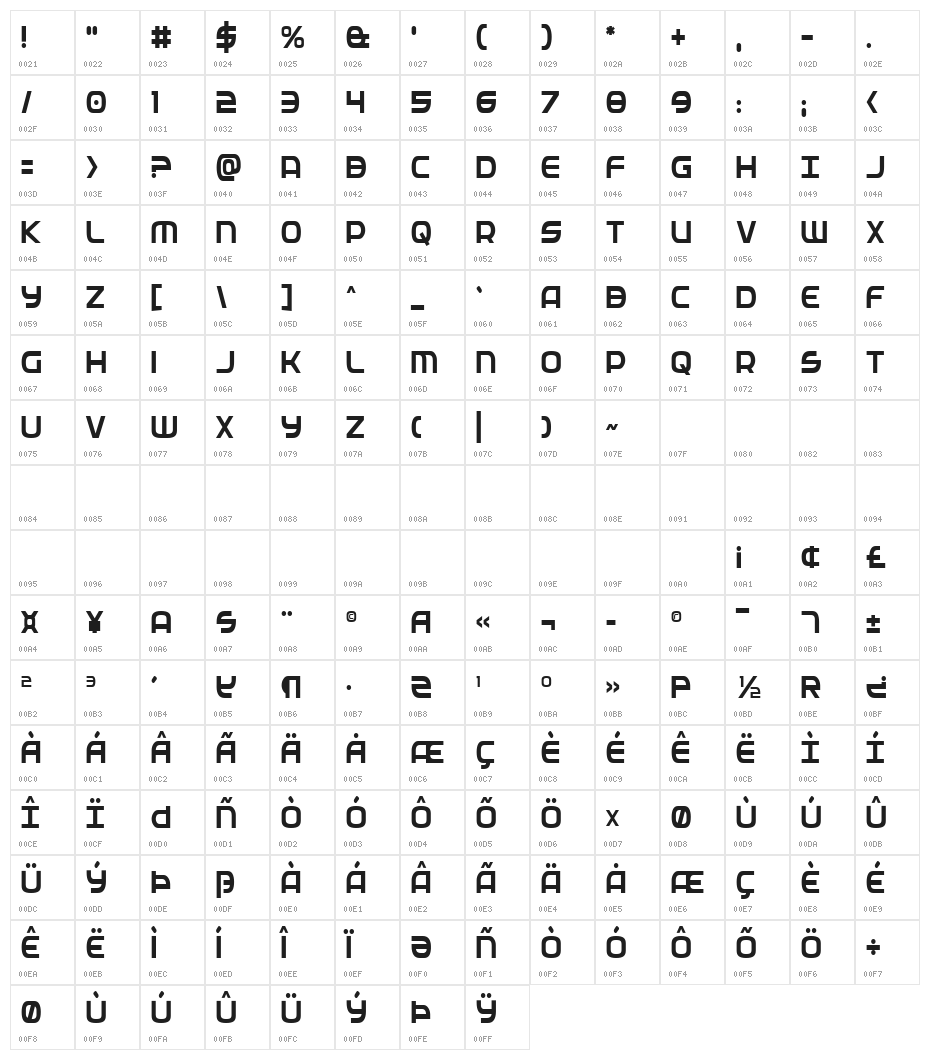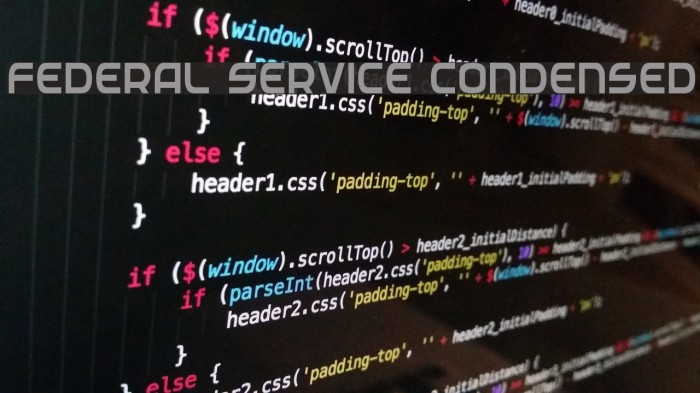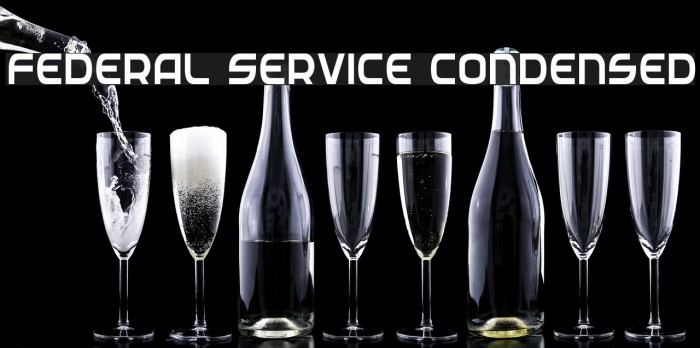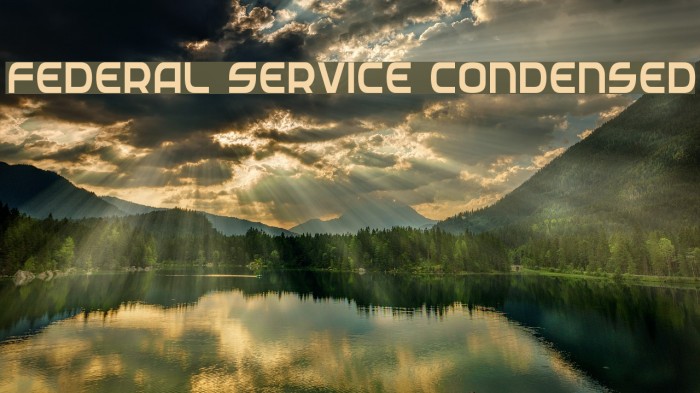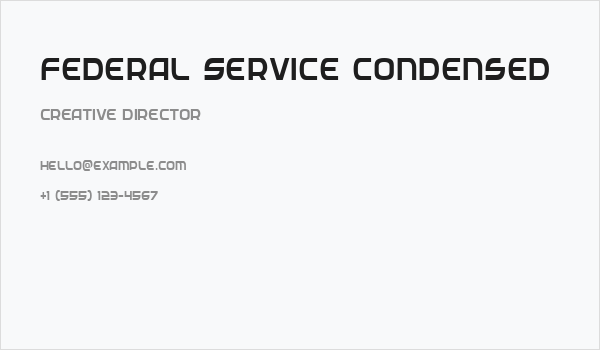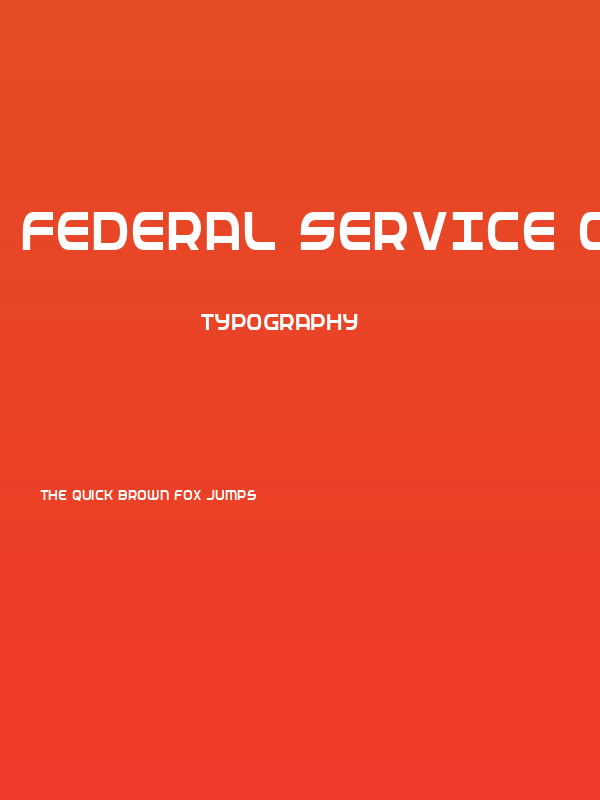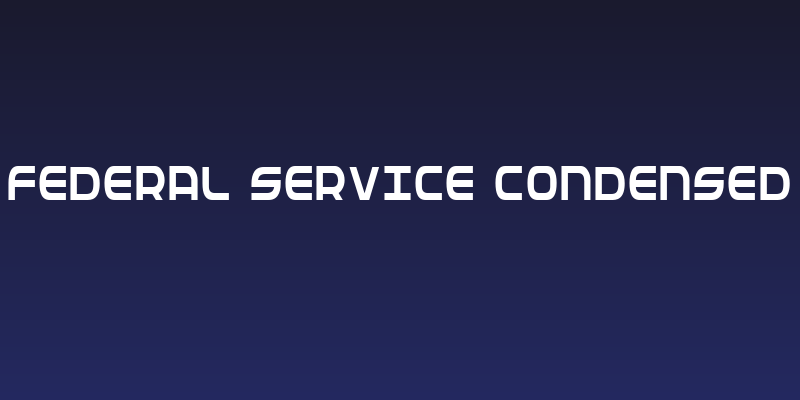
Federal Service Condensed Font
Federal Service Condensed Description
This font features a modern and sleek design with a condensed structure, making it ideal for space-saving applications. The characters are bold and uniform, with a geometric influence that lends a futuristic feel. The uppercase letters are particularly striking, with a consistent height and width that enhances readability. The numerals and special characters maintain the same design ethos, ensuring a cohesive look across all text elements. The font's clean lines and minimalistic style make it versatile for various design projects.
| Use Case | Headlines, Logos, Signage |
| Proposed Projects | Ideal for branding, signage, posters, and digital interfaces where space is limited and a modern aesthetic is desired. |